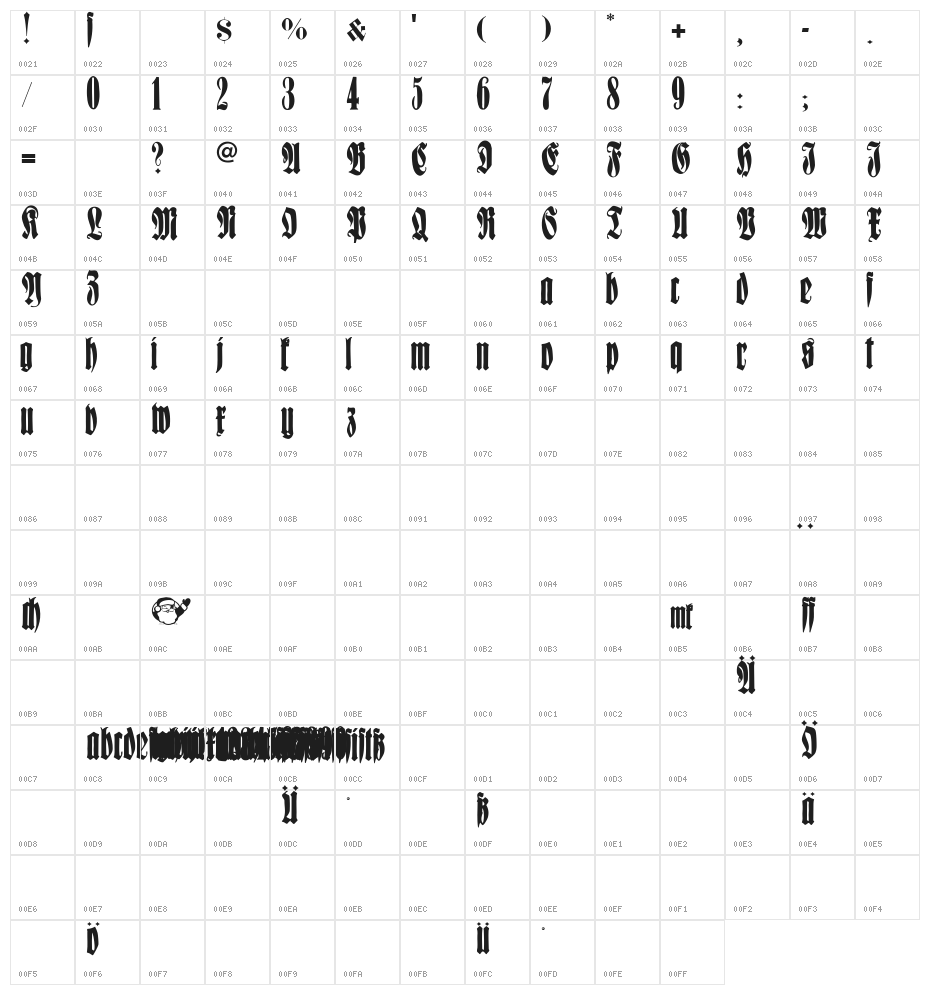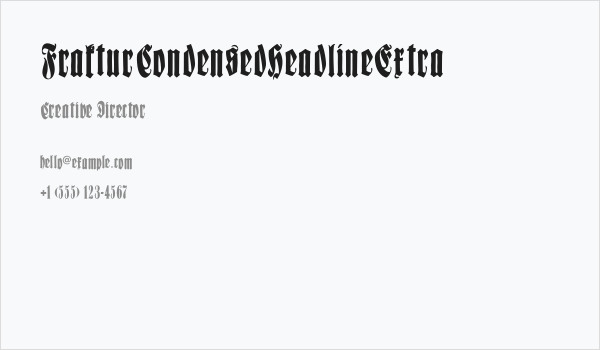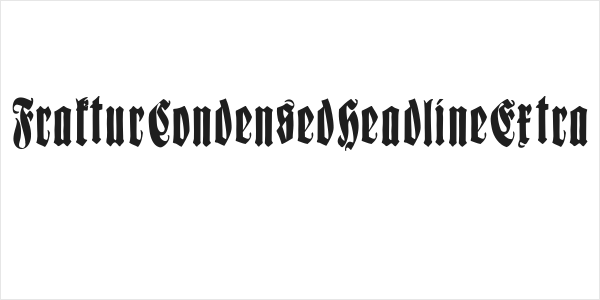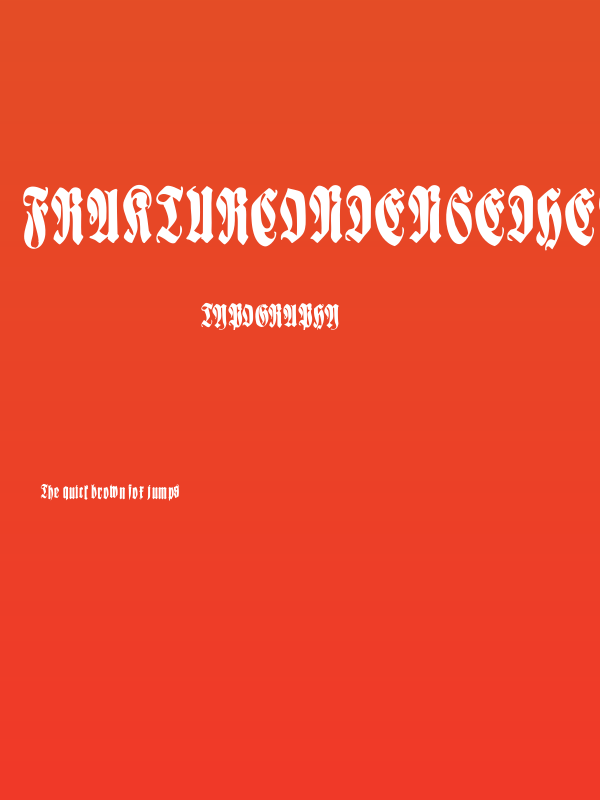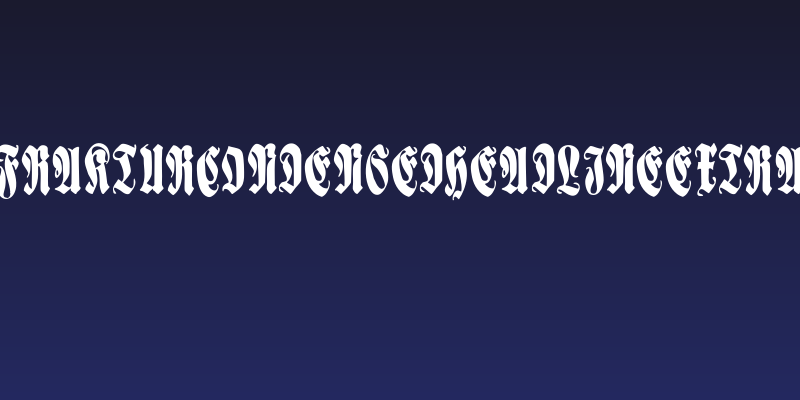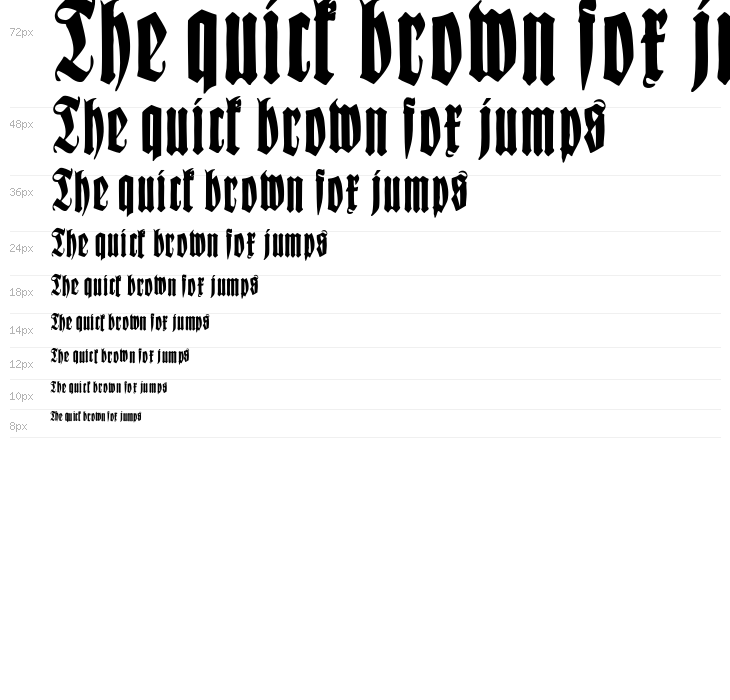
FrakturCondensedHeadlineExtra Font
FrakturCondensedHeadlineExtra Description
This font embodies the traditional elegance and intricate detailing of blackletter styles, characterized by its sharp, angular lines and dramatic flourishes. The uppercase letters are bold and commanding, with a distinct medieval flair that is both historic and artistic. Lowercase letters maintain the same intricate design, offering a cohesive look throughout. The numerals and special characters are equally ornate, ensuring consistency across all text. This font's condensed nature allows for efficient use of space while maintaining readability, making it ideal for impactful headlines and decorative purposes.
| Use Case | Headlines, Logos, Decorative text |
| Proposed Projects | Ideal for projects requiring a medieval or gothic aesthetic, such as event posters, book covers, or branding for historical-themed businesses. |